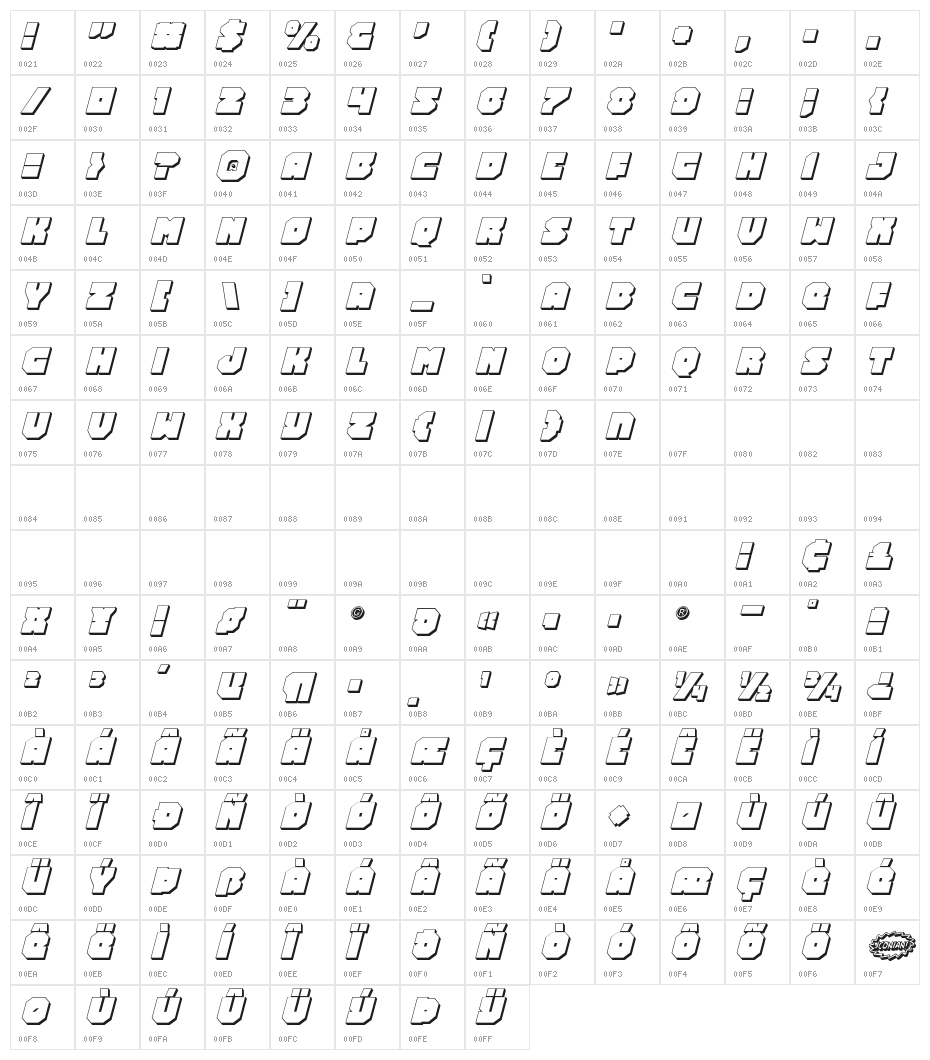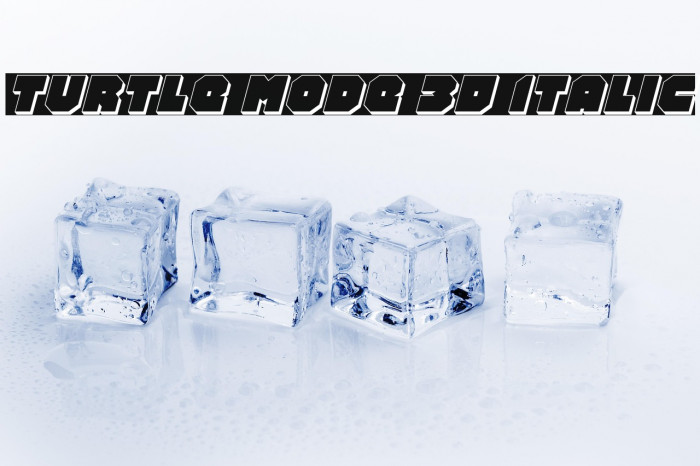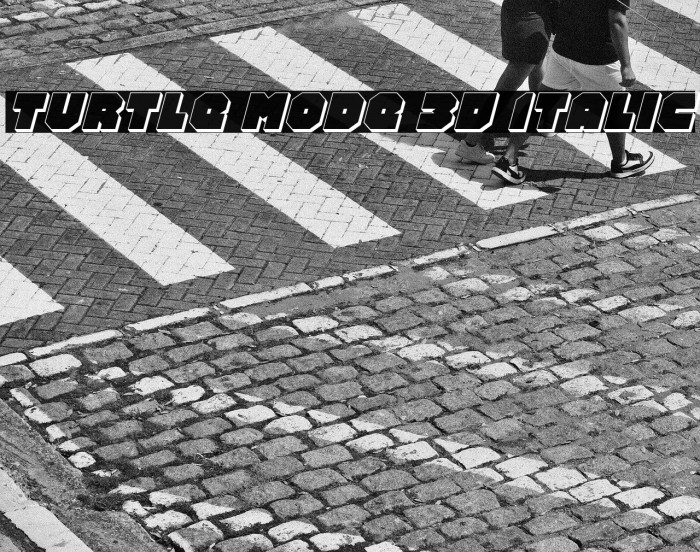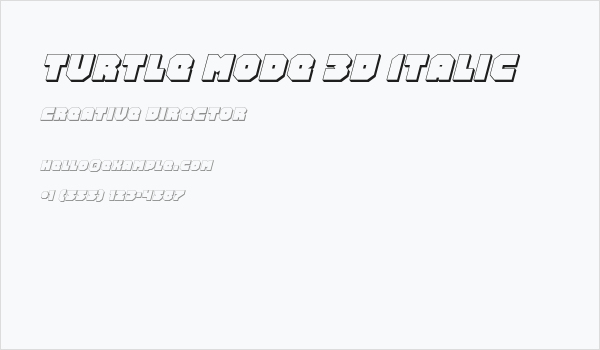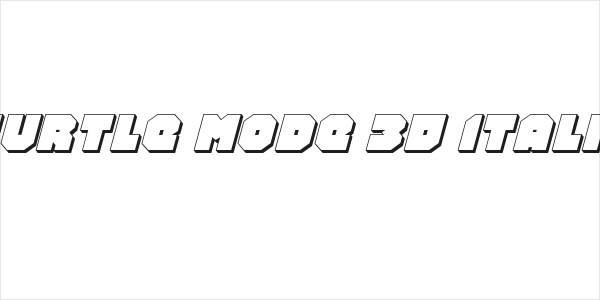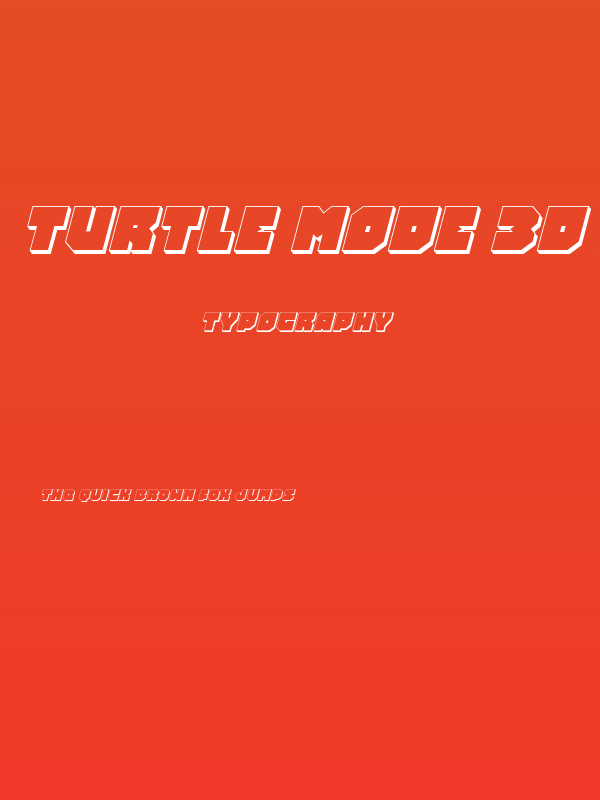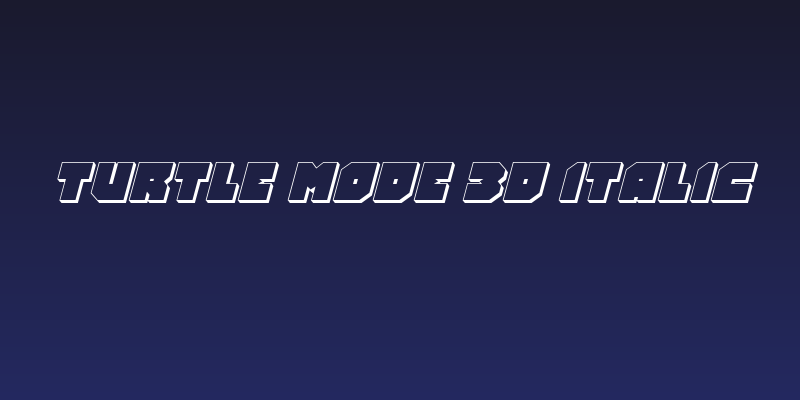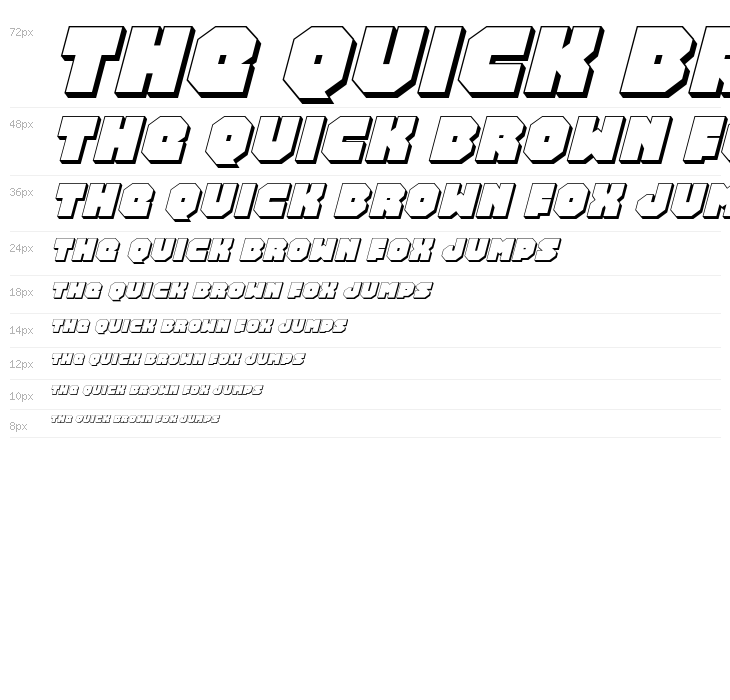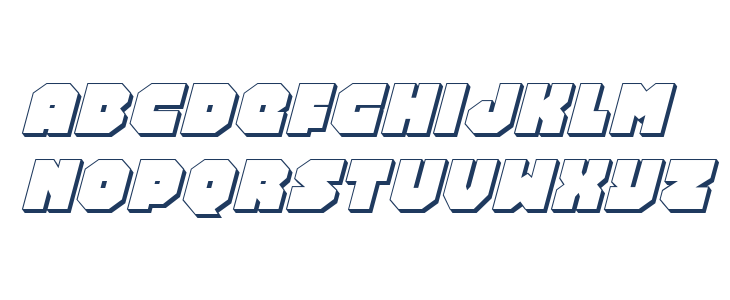
Turtle Mode 3D Italic Font
Turtle Mode 3D Italic Description
This font features a bold, three-dimensional style with a strong, angular presence. The characters are designed with a shadow effect that gives them a lifted appearance, creating a sense of depth and dimension. The uppercase and lowercase letters maintain a consistent geometric form, while the numbers and special characters follow the same bold, structured design. The font's italic slant adds a dynamic, forward-moving energy, making it suitable for attention-grabbing headlines and titles. Its unique style is both modern and playful, ideal for projects that require a standout, impactful typeface.
| Proposed Projects | Ideal for video game titles, posters, logos, and any design needing a bold, dynamic look. |